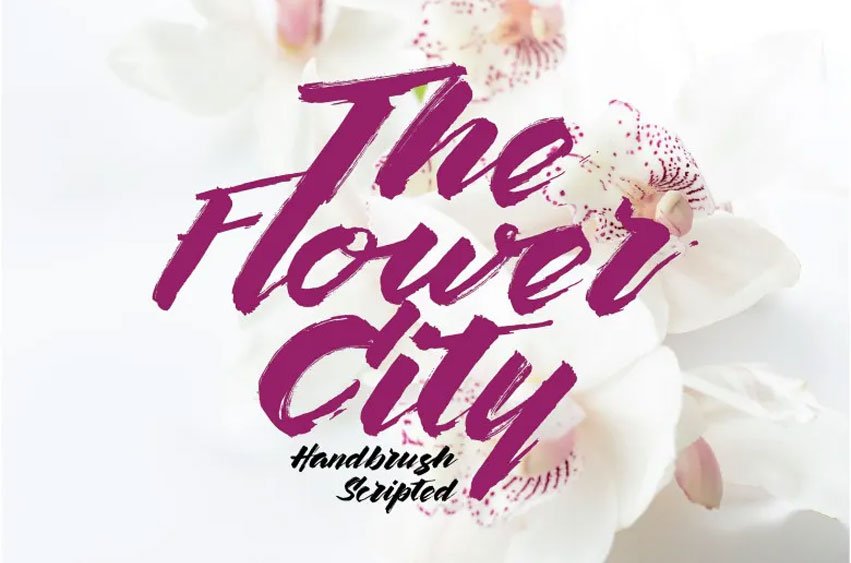
The Flower City Font is another good font created by Wubstudio which can be purchased at Creativemarket; it was quite engaging for me to discover that it can be downloaded for free! Flower City is a beautiful name given to Bandung the city where I am at the moment.
These fonts are beautifully flowers, sweet-smelling and daintily girly – which makes them perfect for logotypes and logos, T-shirt prints and more. Every font was produced manually in script and with all the heart.